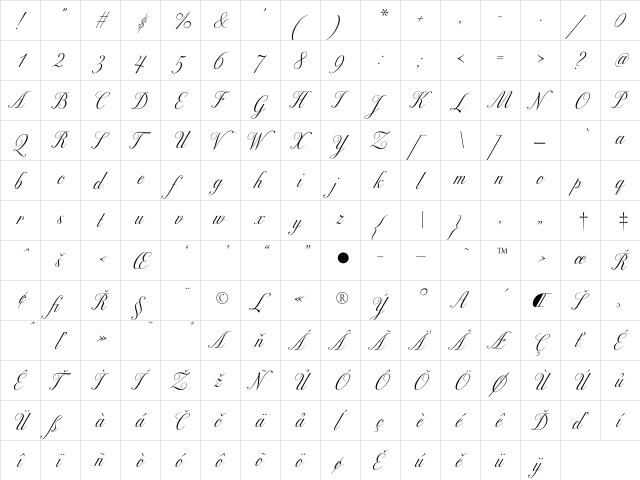
ExcelsiorScript Regular
Design Context for ExcelsiorScript Typeface
ExcelsiorScript brings a calligraphic fluidity to the page — its connecting strokes and expressive curves give it an unmistakably human quality.
Font Pairing: Combine ExcelsiorScript with a simple geometric sans for maximum contrast — the tension between flowing curves and clean structure is a classic typographic pairing.
Pro Tip: Pair ExcelsiorScript with a clean sans-serif for supporting text. The contrast between fluid script and geometric structure creates an elegant typographic hierarchy.